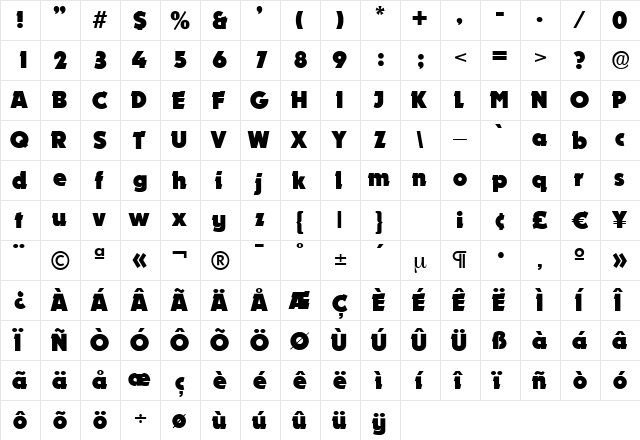
D891-Deco Regular Font Preview
D891-Deco Regular
D891-Deco Regular Font Details
Design Context for D891-Deco Typeface
D891-Deco is a composed and adaptable typeface that performs quietly and consistently across a wide range of design contexts.